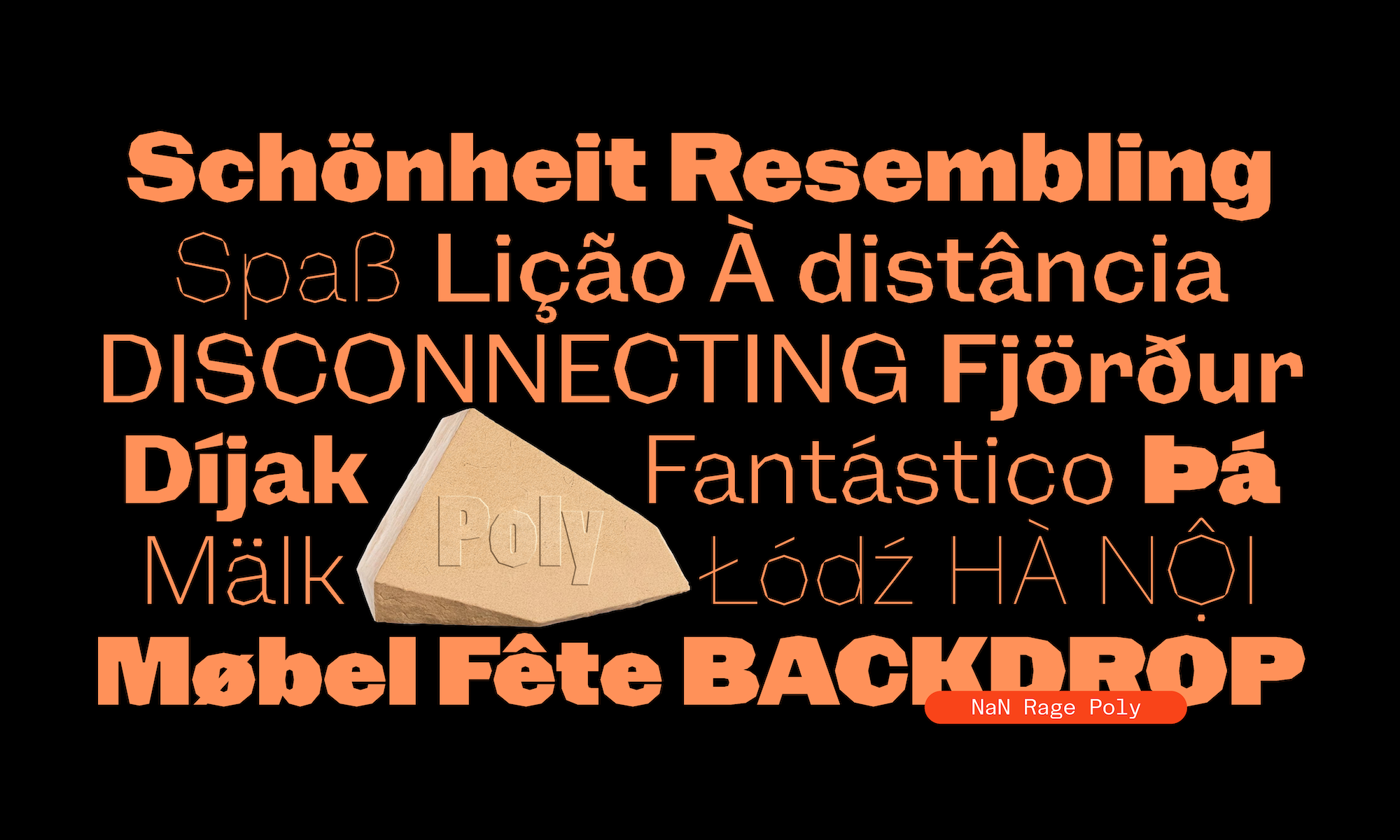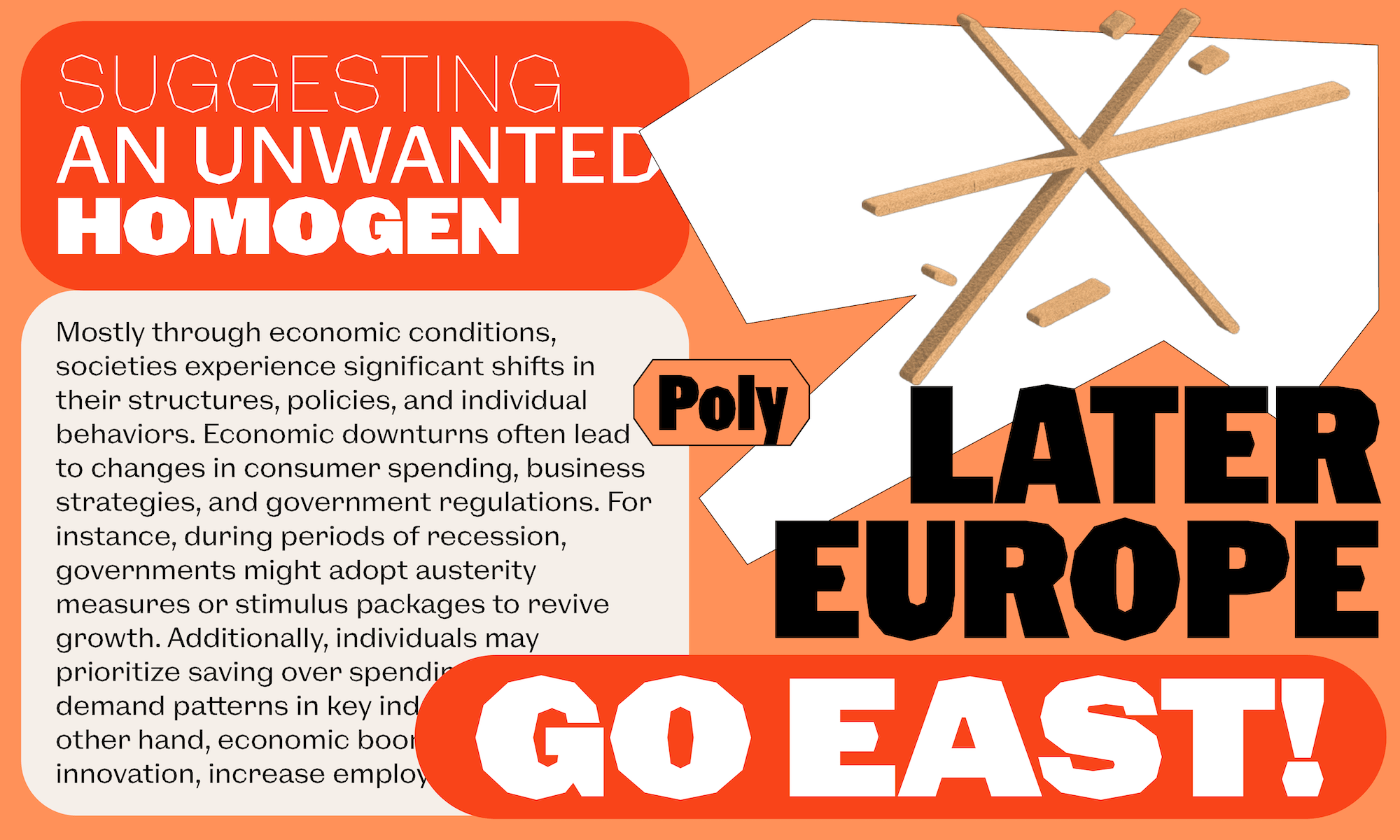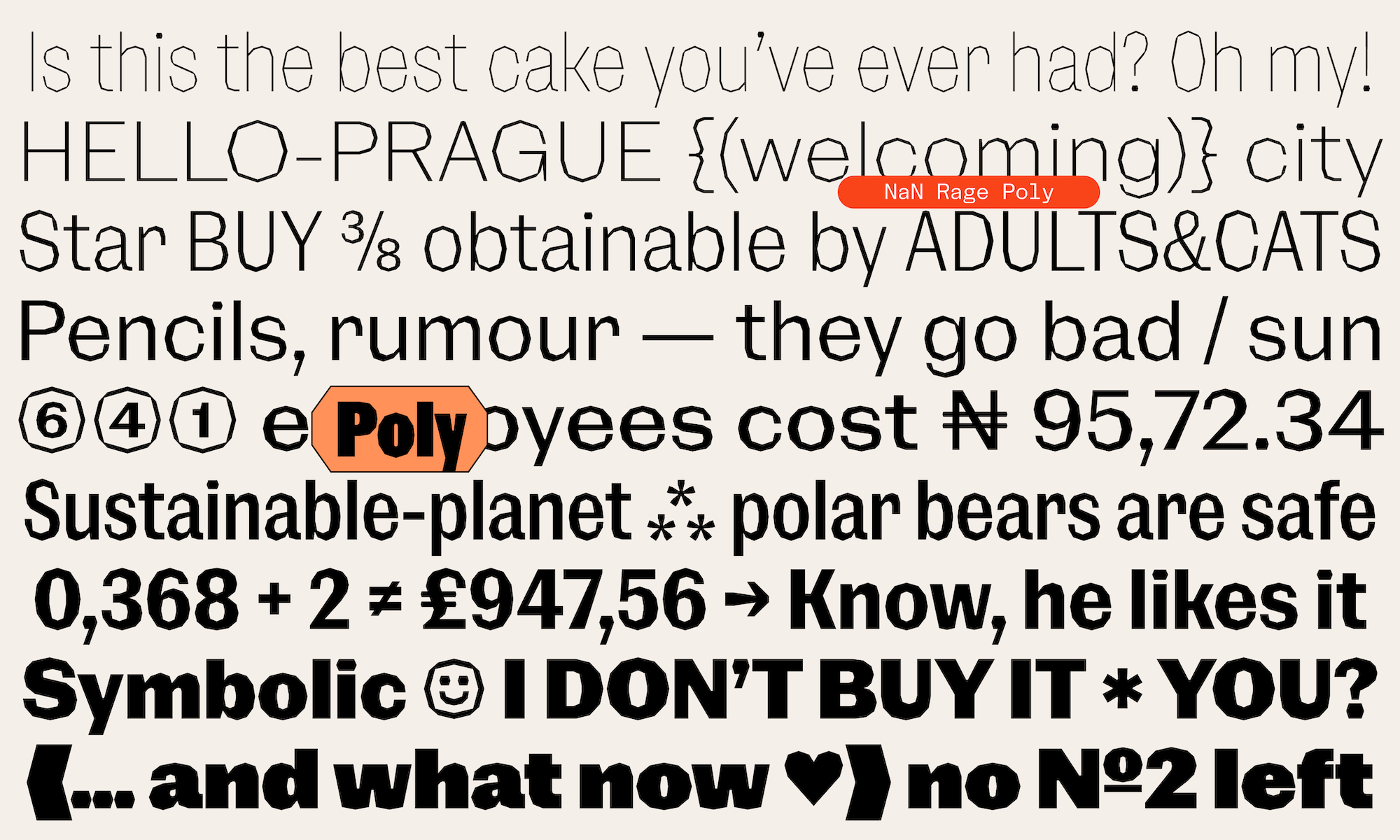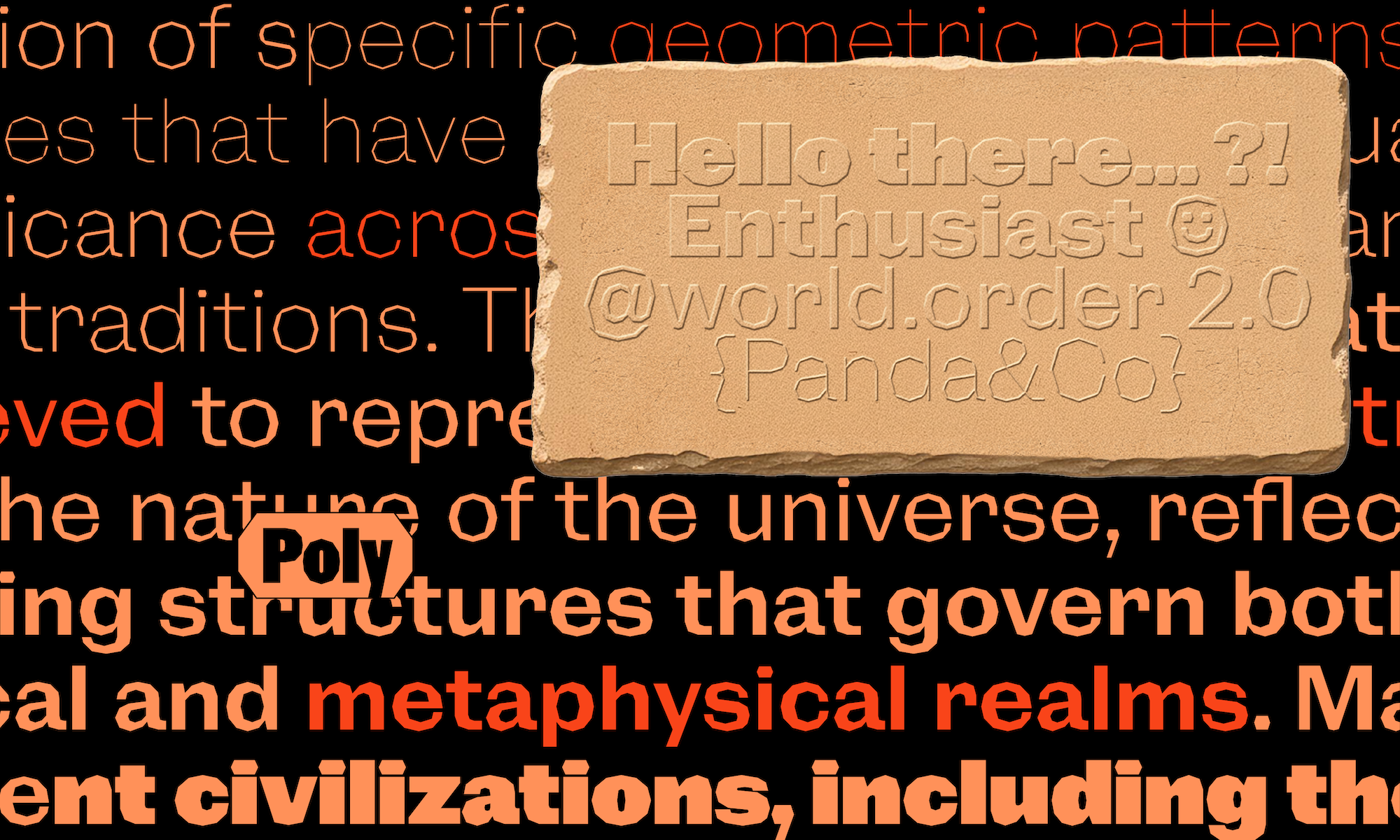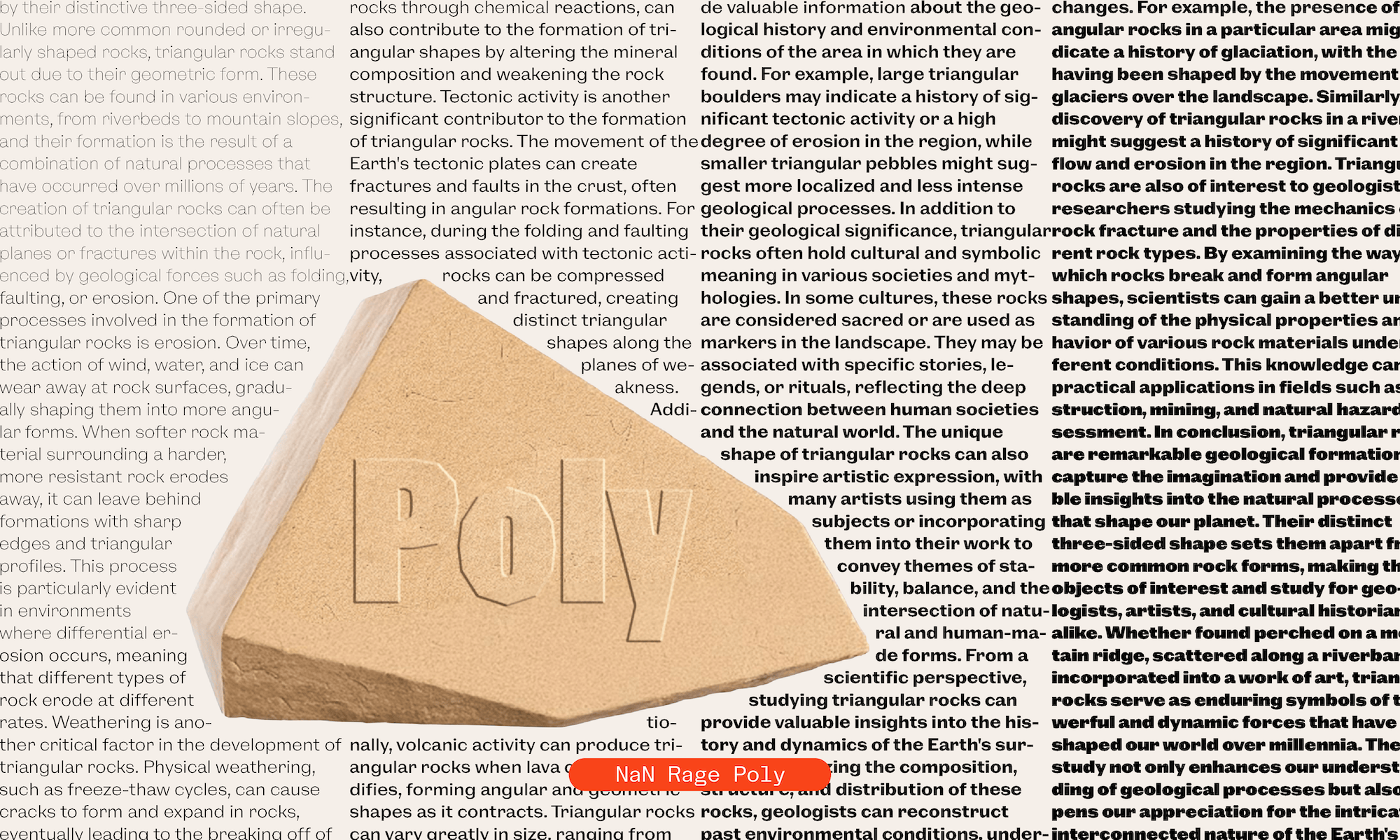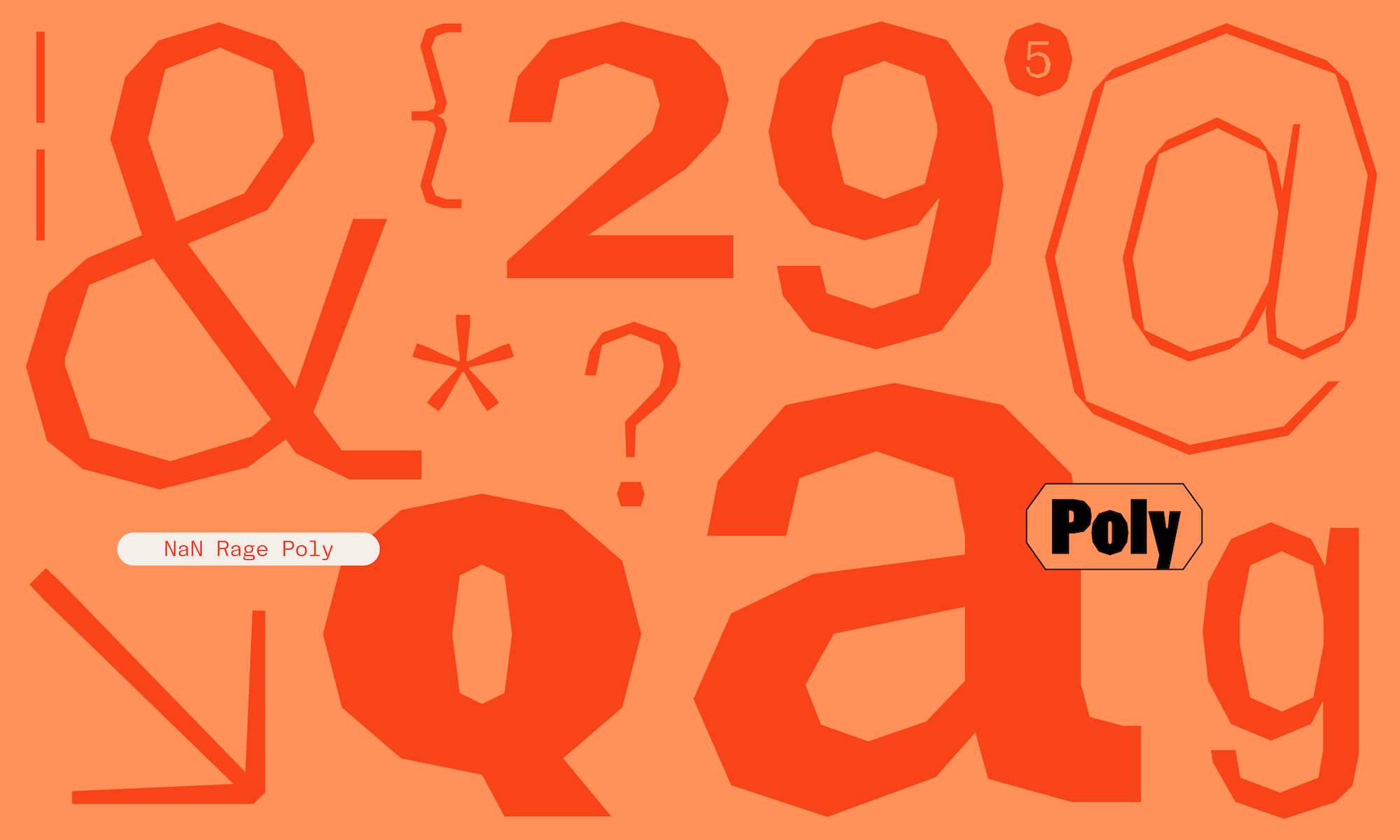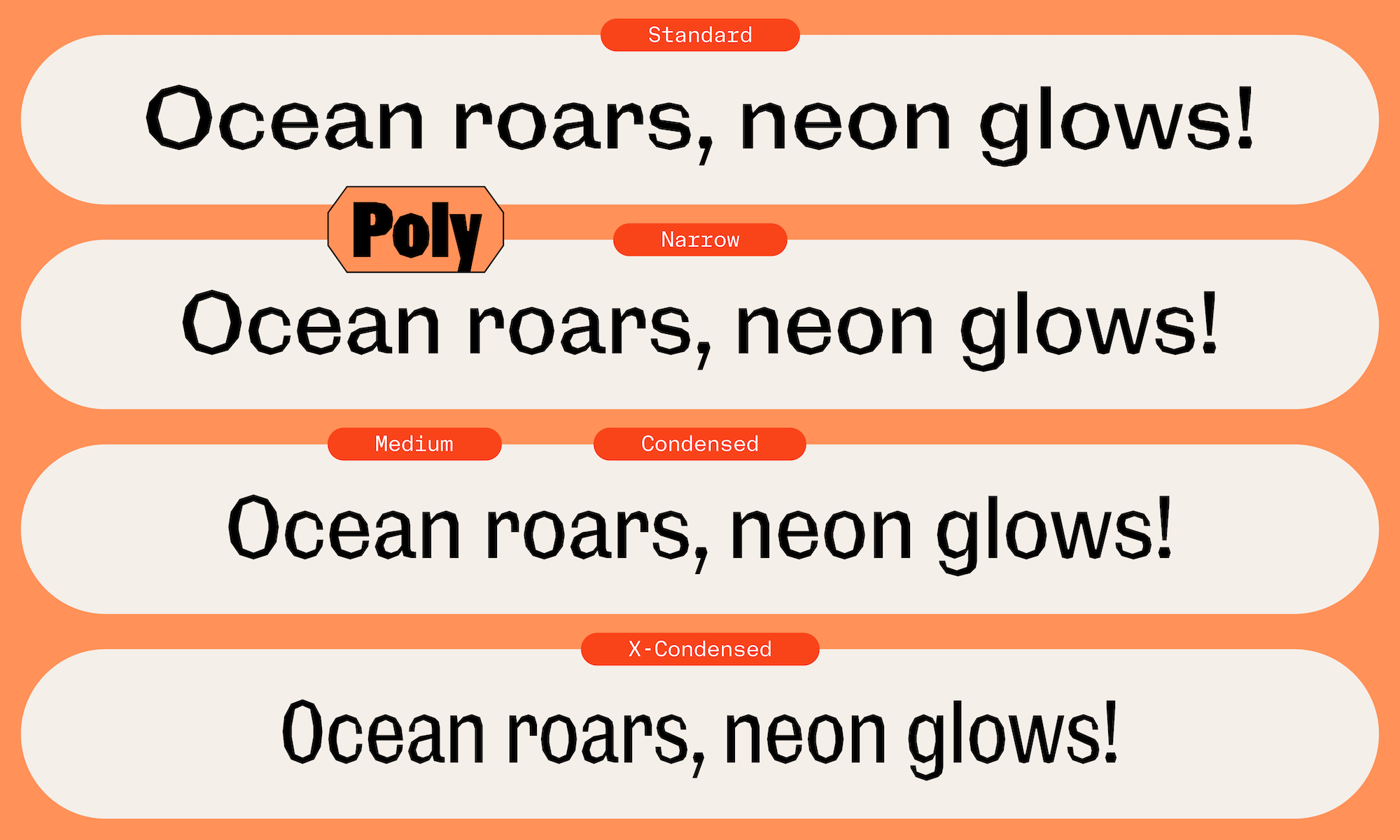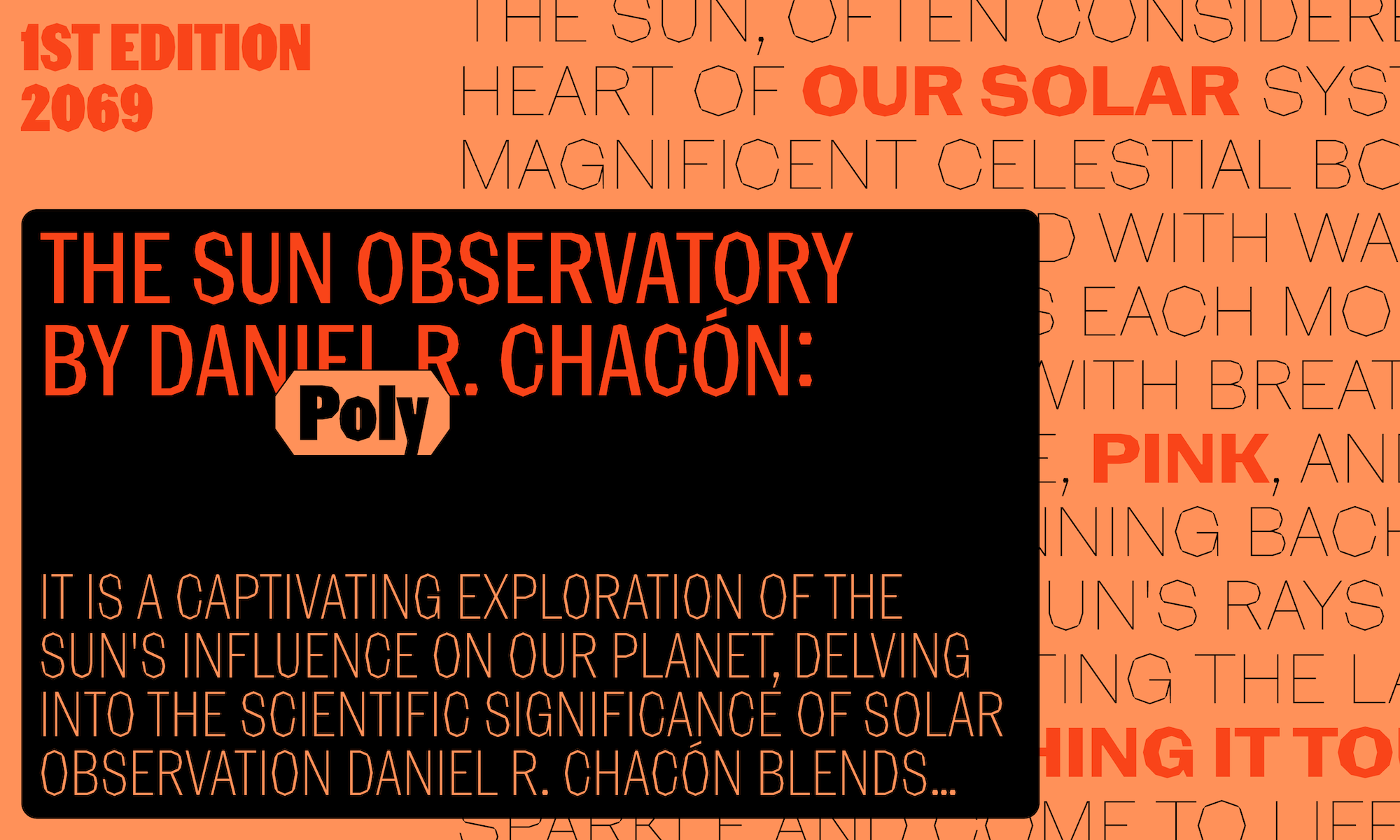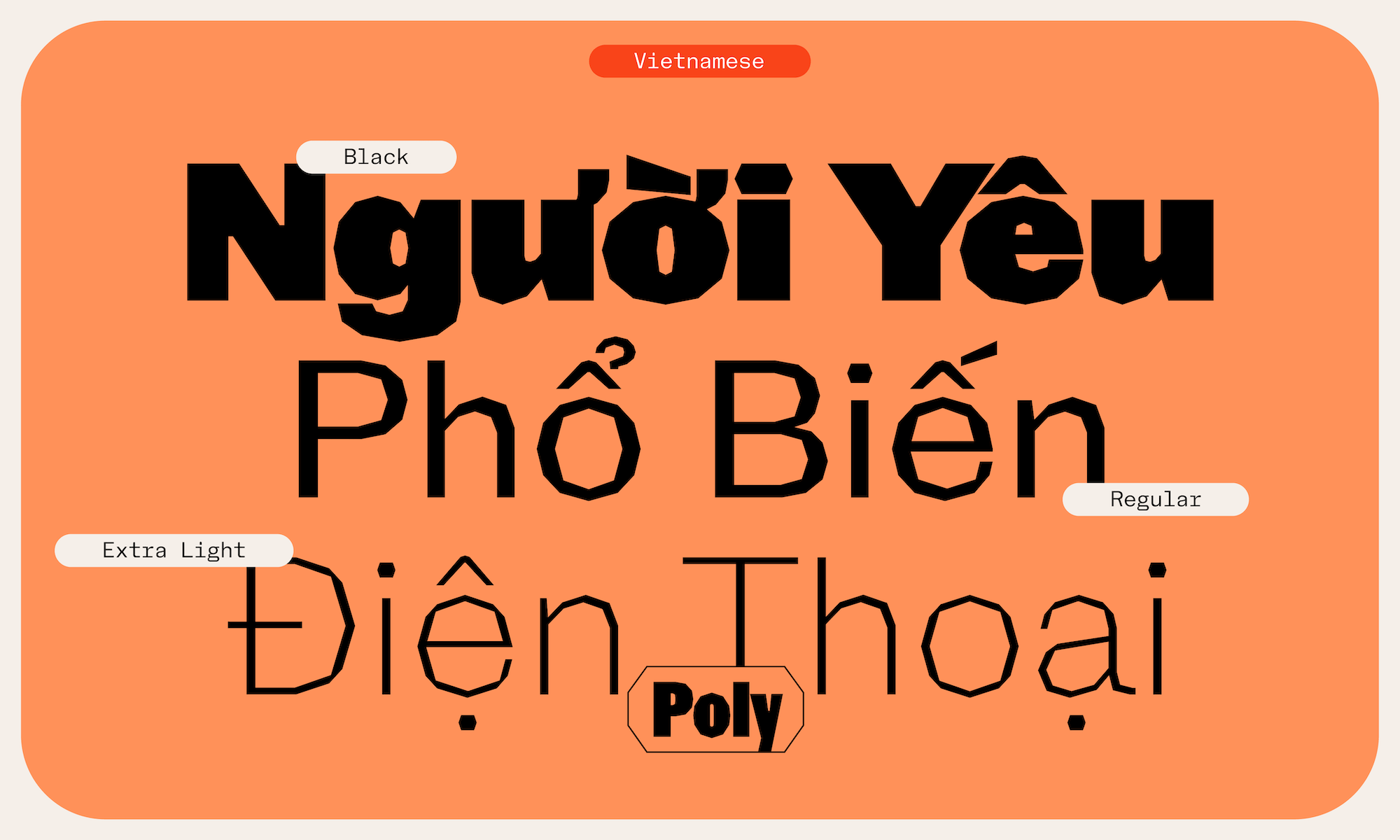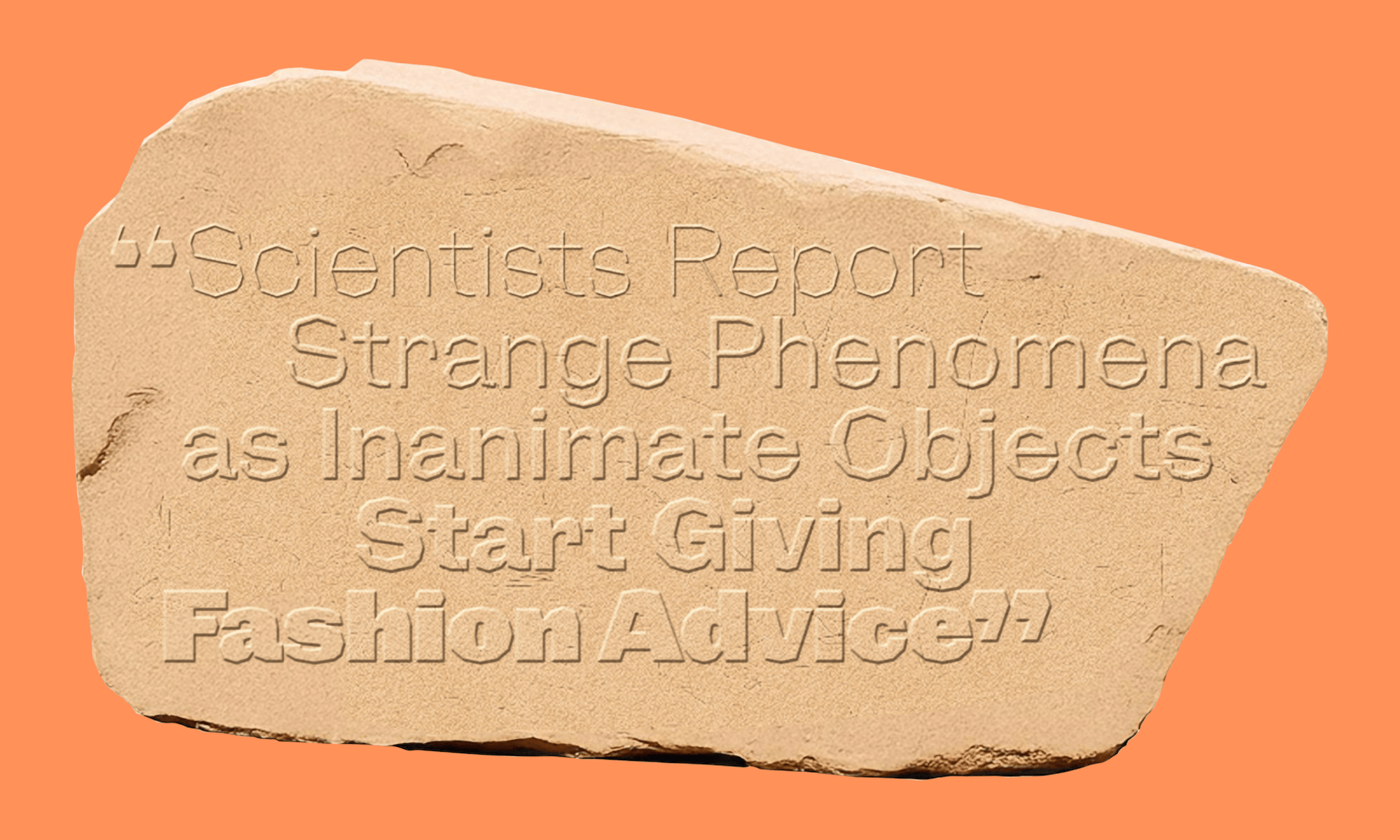
NaN Rage Poly is a curveless sans-serif where each and every curve has been replaced by a series of straight segments. It’s hard to pinpoint Poly’s curvelessness origin to geometry, technology or even cubism and futurism. This effect is hardly noticeable in the bolder weights at small sizes but it’s striking in the lighter weights with their glitchy undertones. Poly is not just the fruit of “let’s delete all curves” process; many thoughtful small details were added to enhance the polygonal aspect of Poly, such as the flat diamonds of the periods and tittles.
Rage Poly is available in 4 widths and 9 weights each, allowing precise fine-tuning of its girth for big narrow titles as well as perfectly-fitted columns of text.